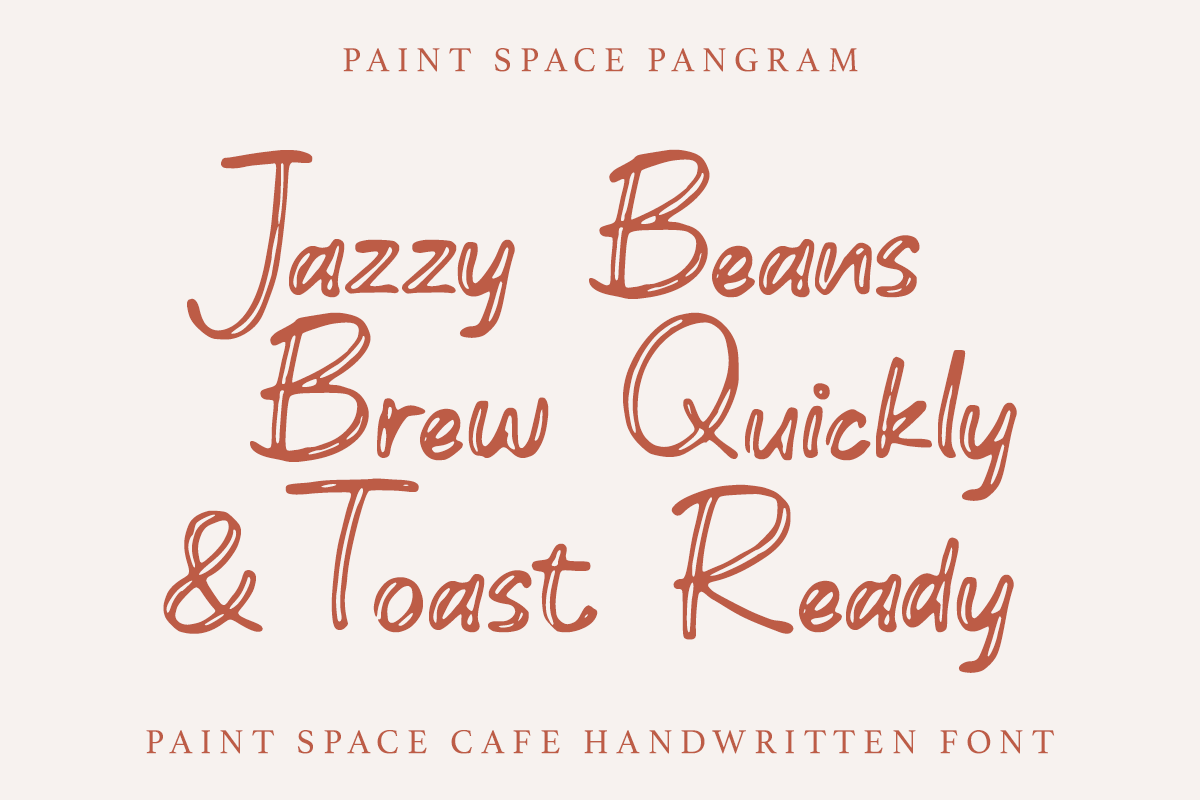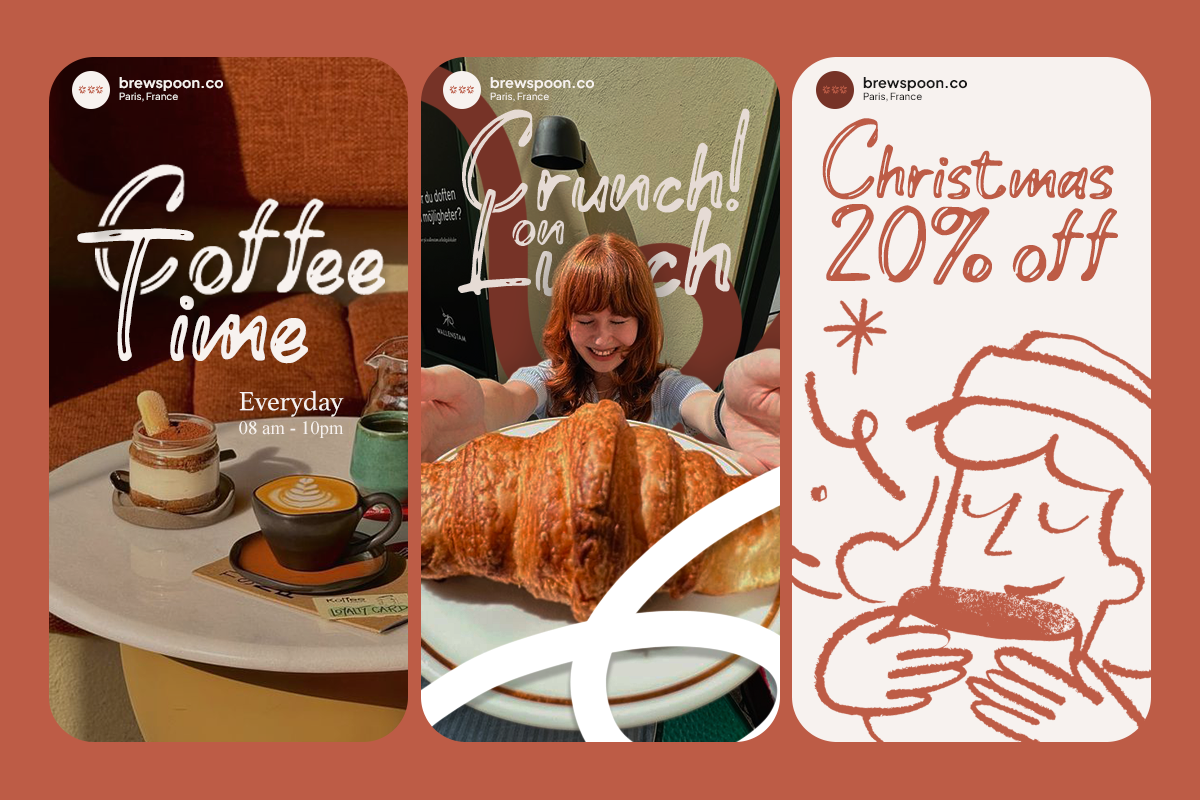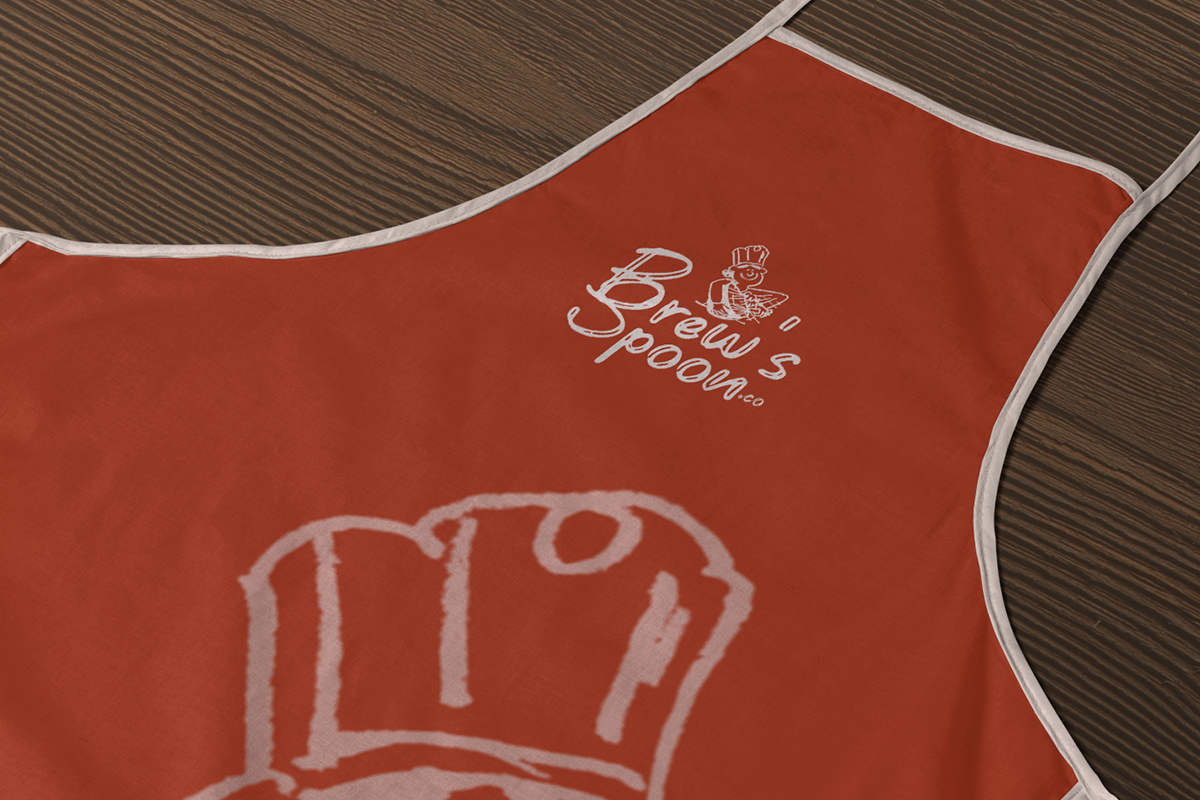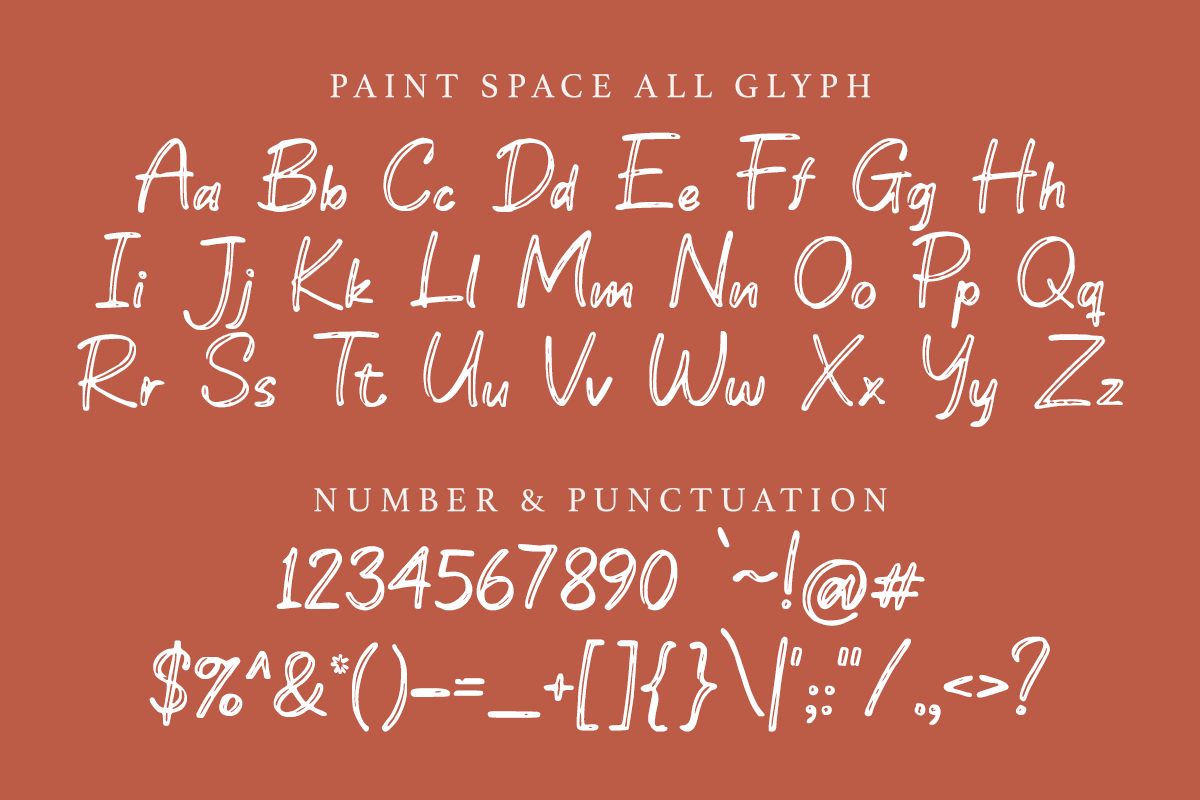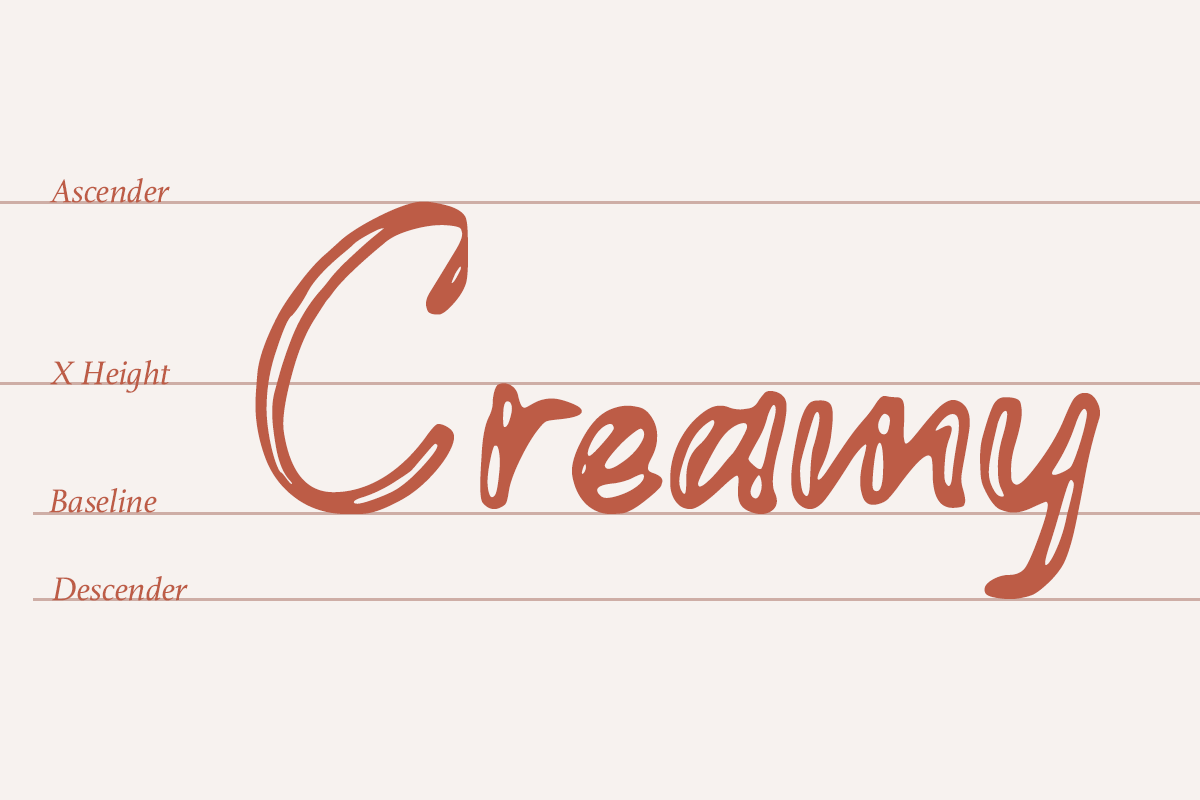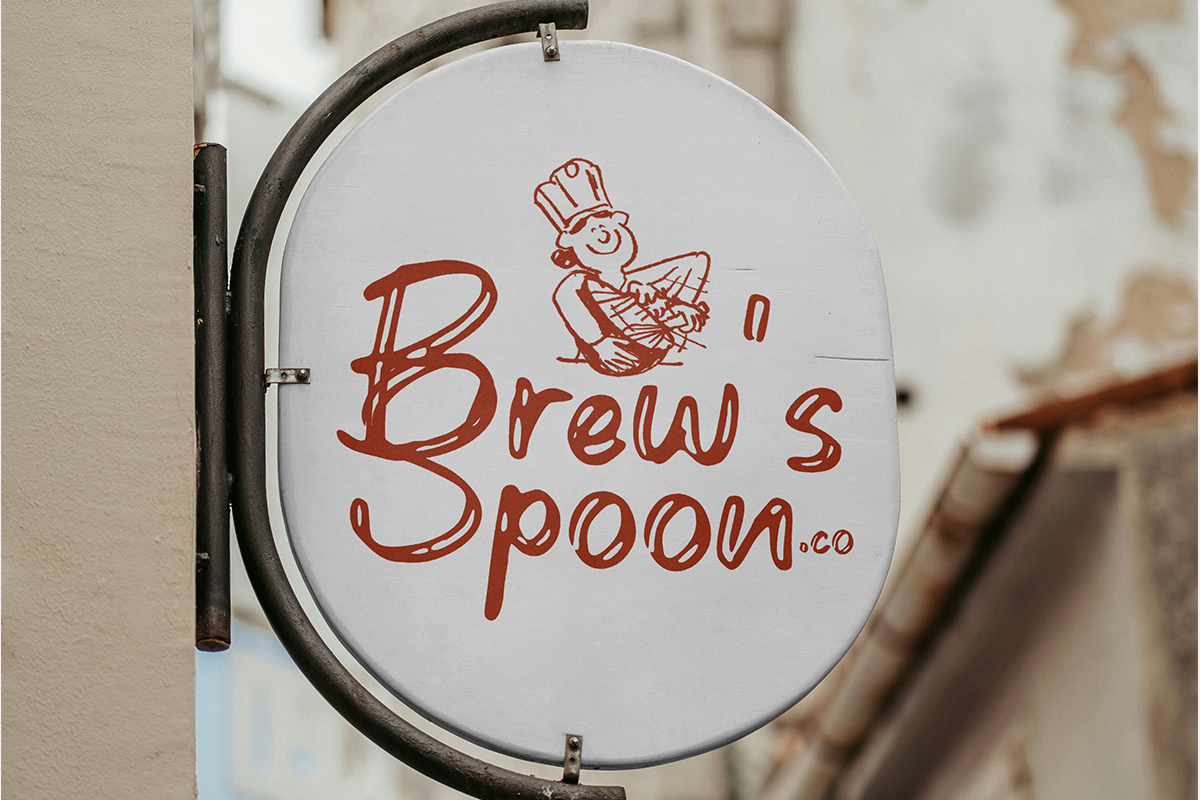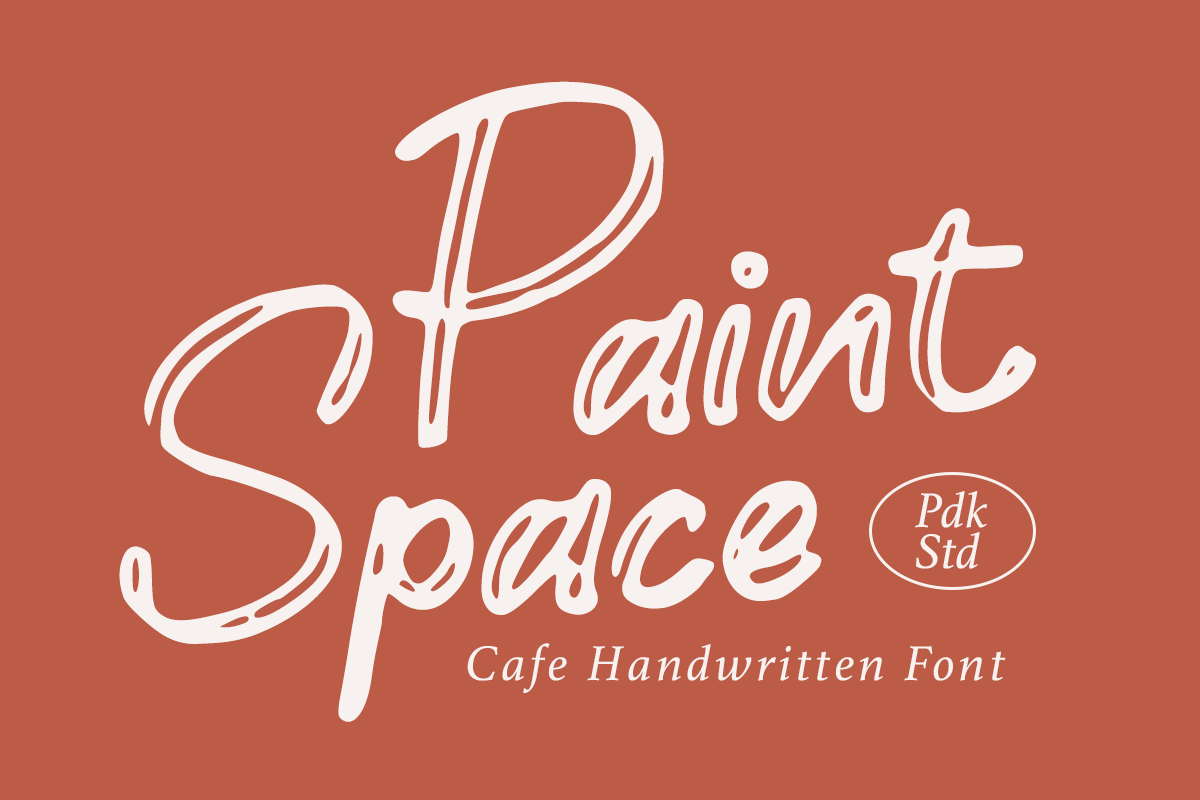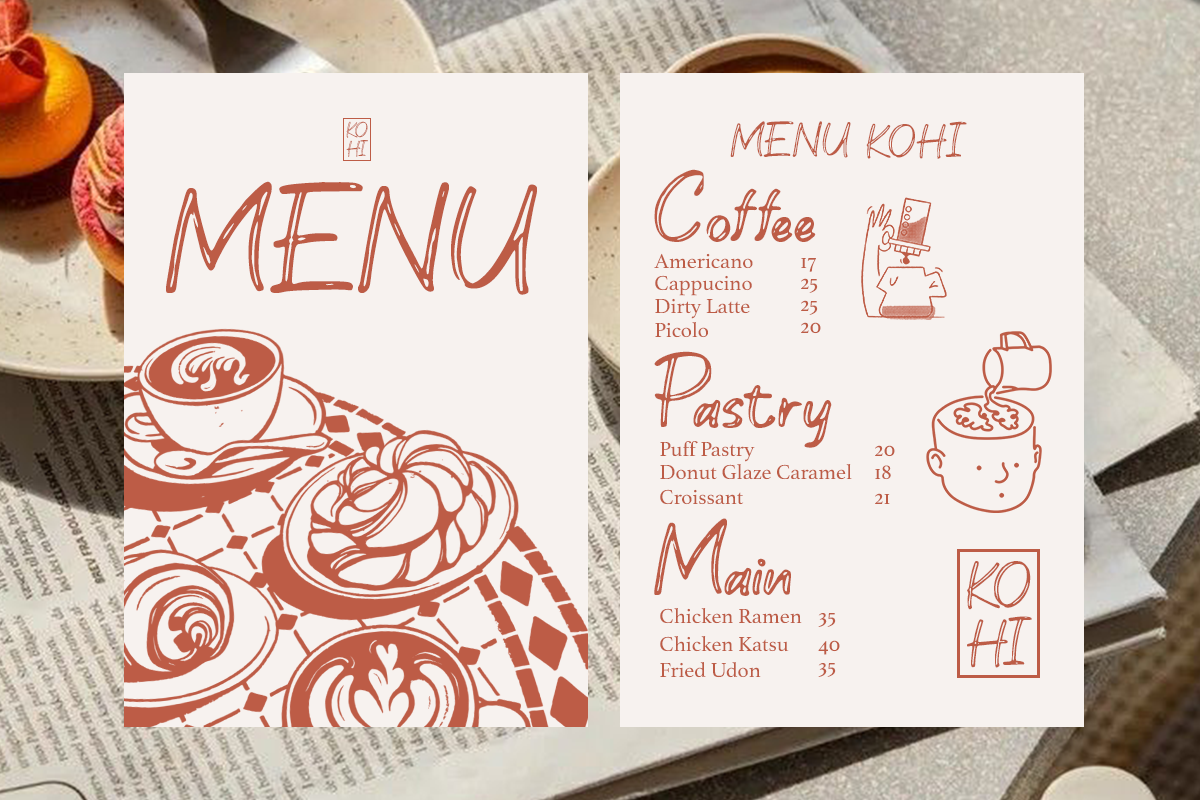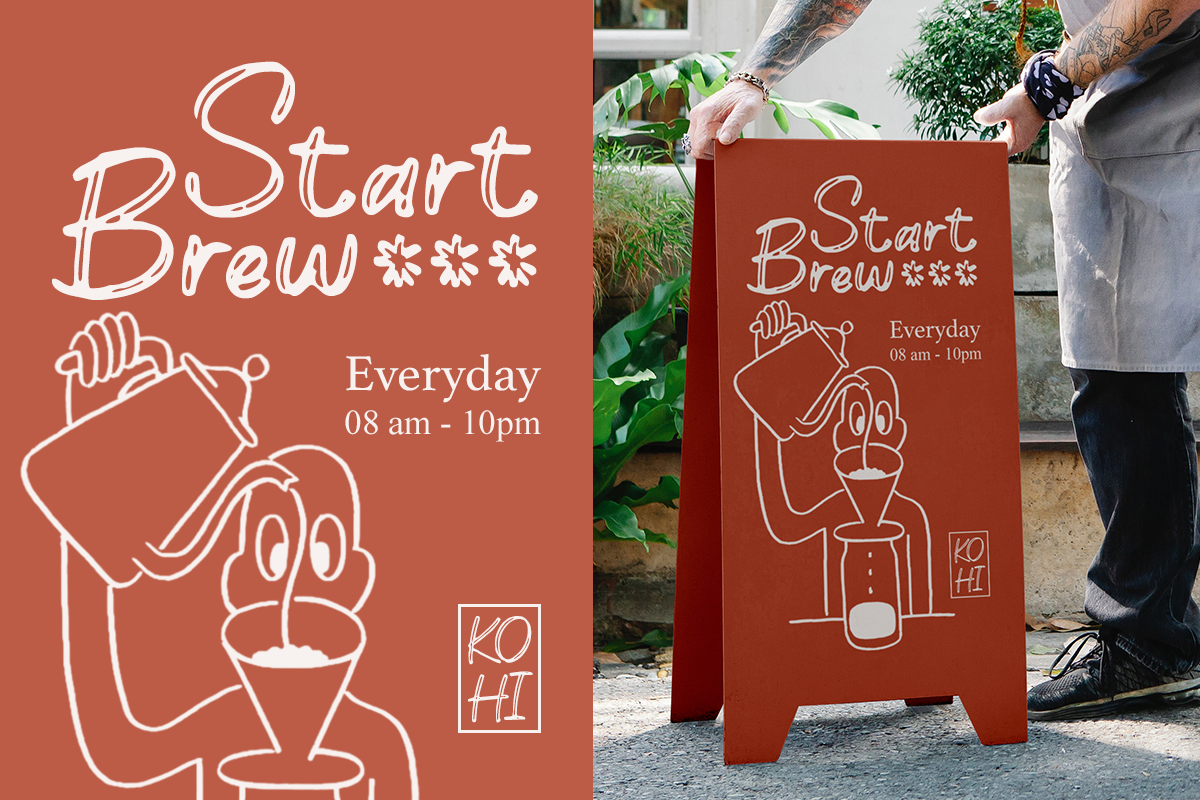
Paint Space - Cafe Handwritten Font
Paint Space is a cozy and friendly handwritten font that captures the charm of a modern café atmosphere. Its casual strokes and smooth flow create a natural handwritten look, perfect for coffee shop branding, menu designs, product packaging, posters, and social media templates that need a personal, welcoming touch.
This font comes in 1 style: Regular, featuring uppercase, lowercase, numbers, punctuation, and multilingual support. With its creamy and expressive handwritten style, Paint Space brings warmth and authenticity to every design — just like your favorite cup of coffee.
- 1 Style: Regular
- Full Character Set: Uppercase, lowercase, numbers, symbols, and punctuation